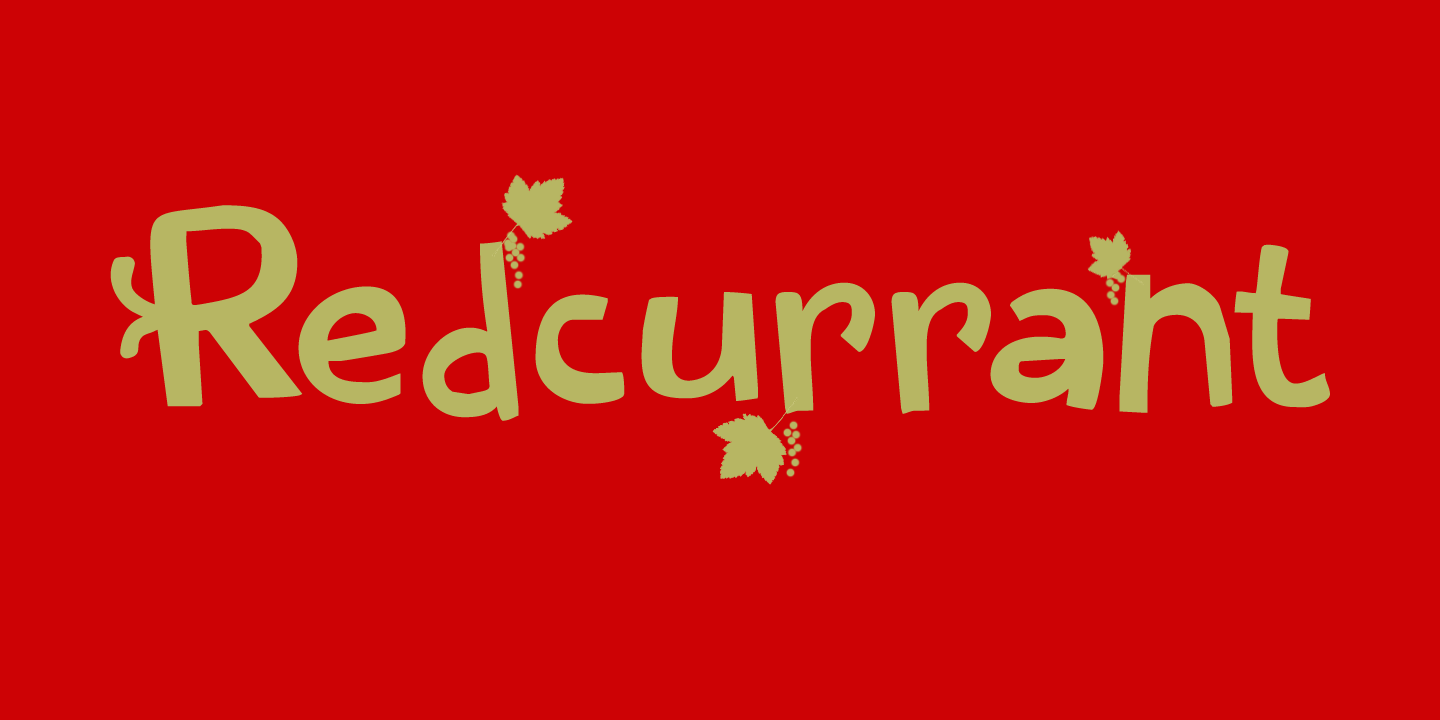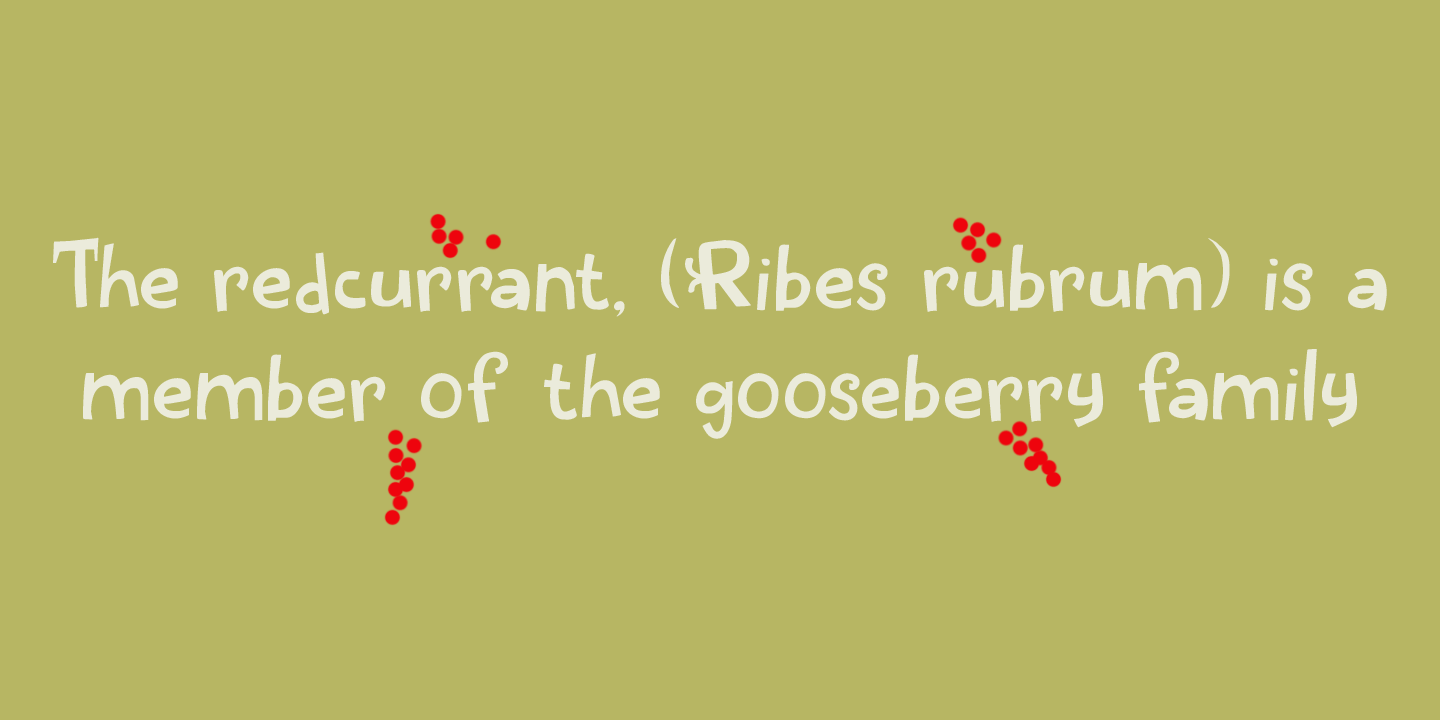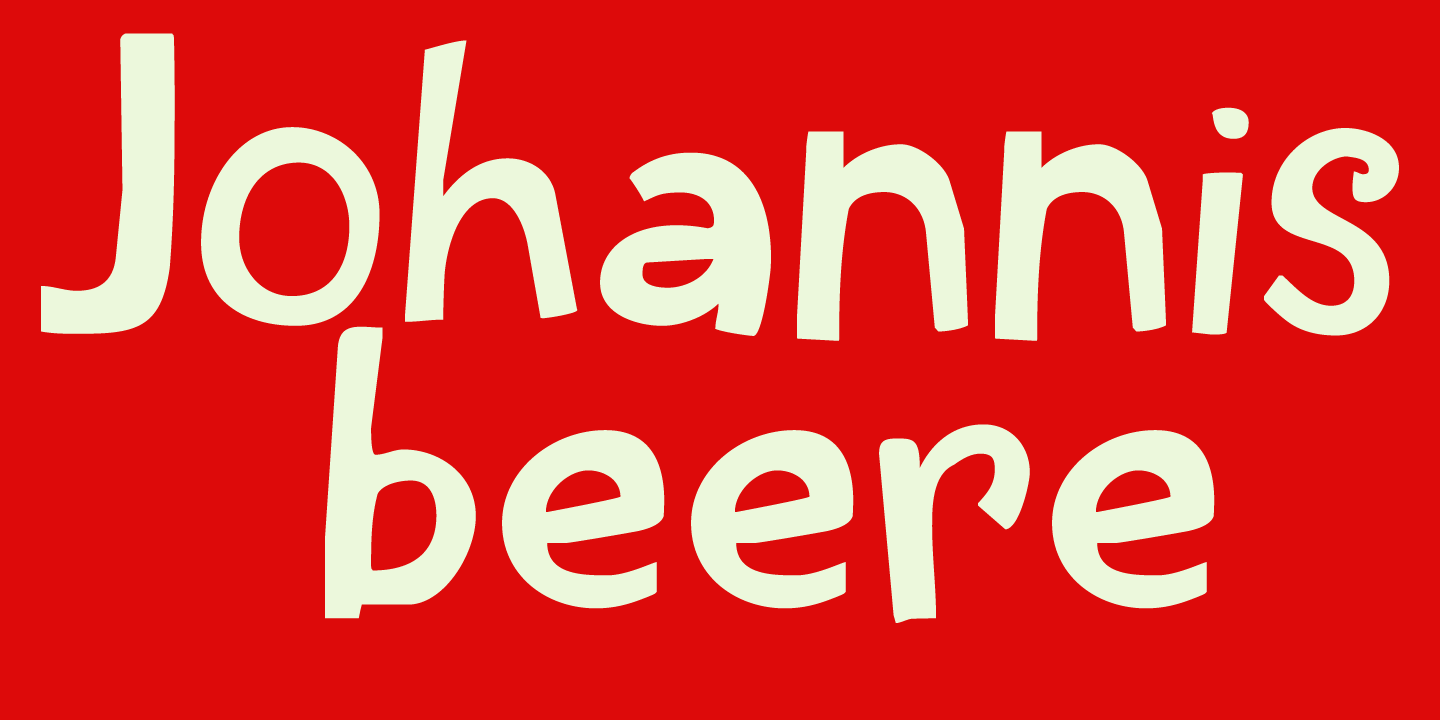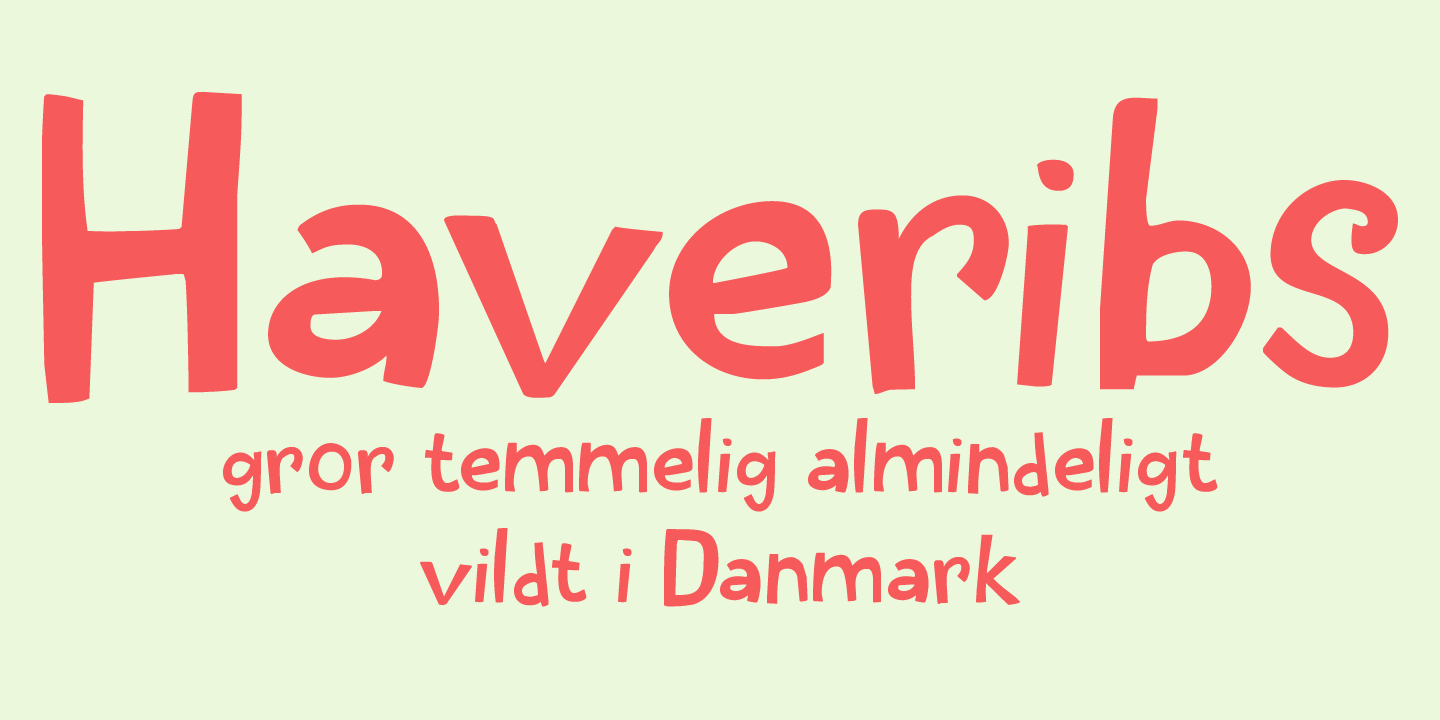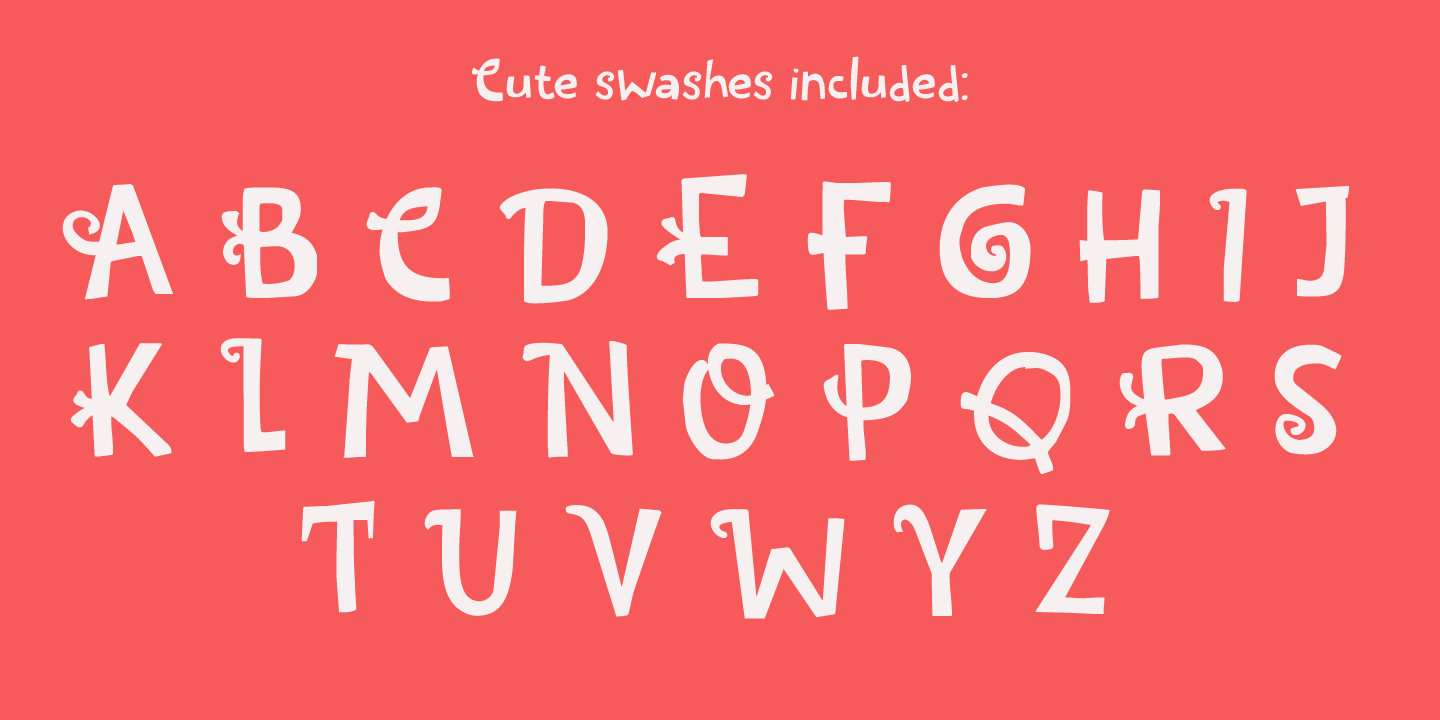
Redcurrant
My family and I recently moved to a ?fixer upper? farm from the 1930's. It came with a slightly run down barn, 4000 square metres of land and a LOT of redcurrant bushes. I can't really say that I am overly fond of them. I find them a bit too tart. As a kid, I used to smother them in sugar, but I can't do that any longer, since I am a responsible dad? ;-)
Redcurrant is a slightly wonky, slightly crazy handmade font. It can be used for book covers or post cards, but feel free to use it for whatever.
Comes with cute little swashes as well.